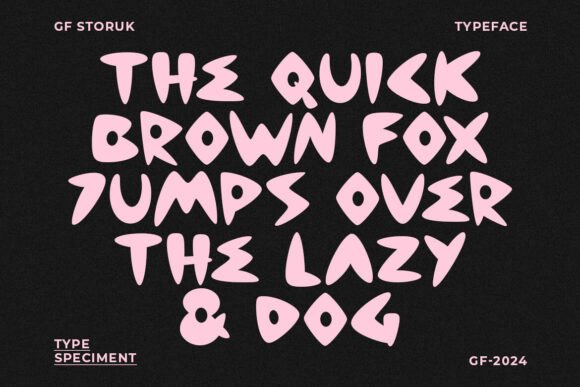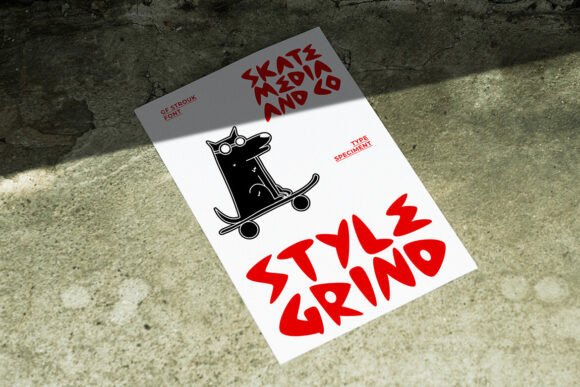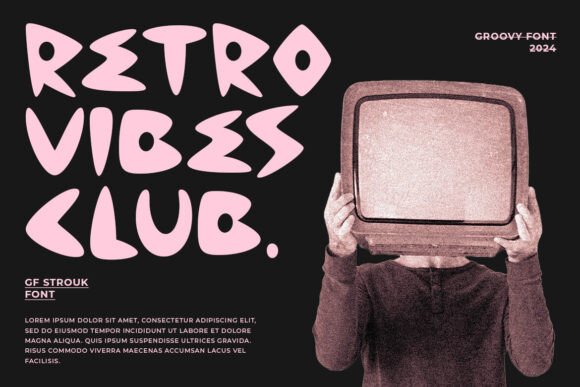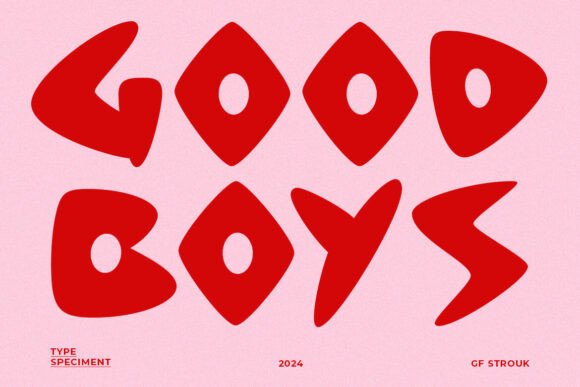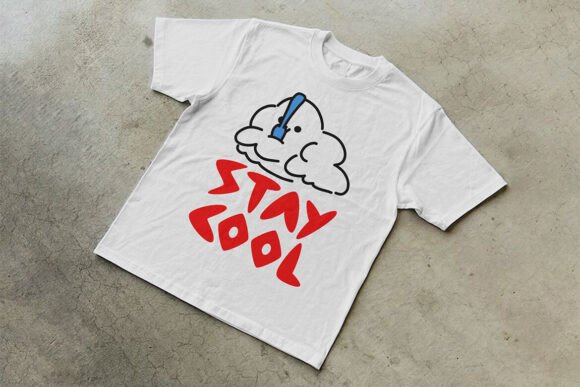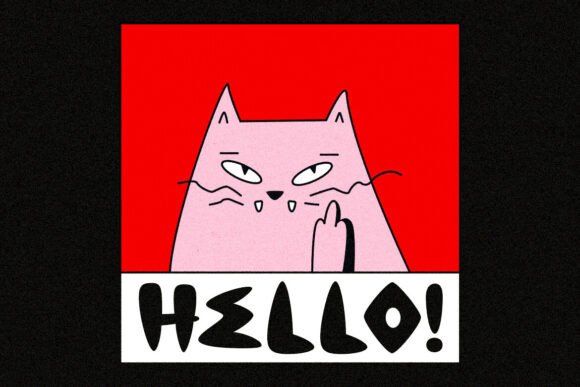
Introduction to Groovy Strouk Font
Groovy Strouk is a stylish and eye-catching display font that exudes a groovy, retro vibe.
With its balanced weight and distinctive letterforms, it is well-suited for titles, headlines, and other prominent text This font strikes a harmonious balance between being attention-grabbing and not overly bold, making it versatile for various design applications.
Key Features of Groovy Strouk Font
Why Choose Groovy Strouk Font?
Groovy Strouk Font offers exceptional quality and versatility, making it a valuable addition to your design toolkit. Whether you’re creating for personal projects or commercial use, Groovy Strouk Font delivers professional results.